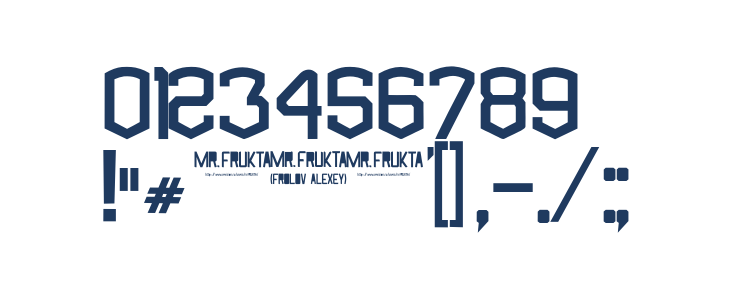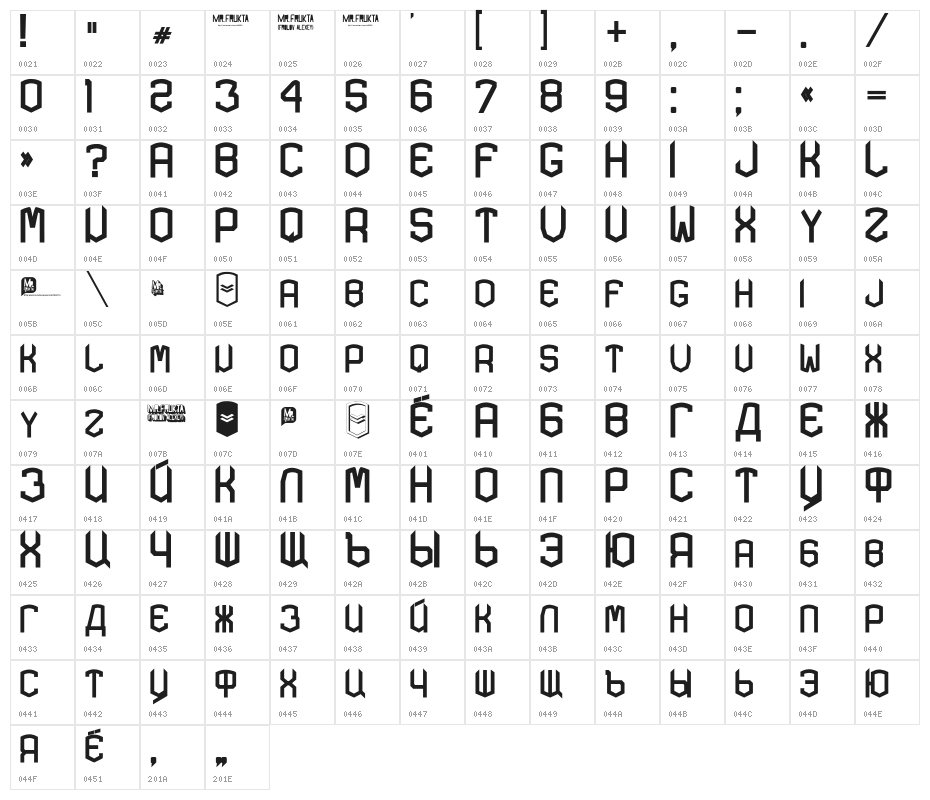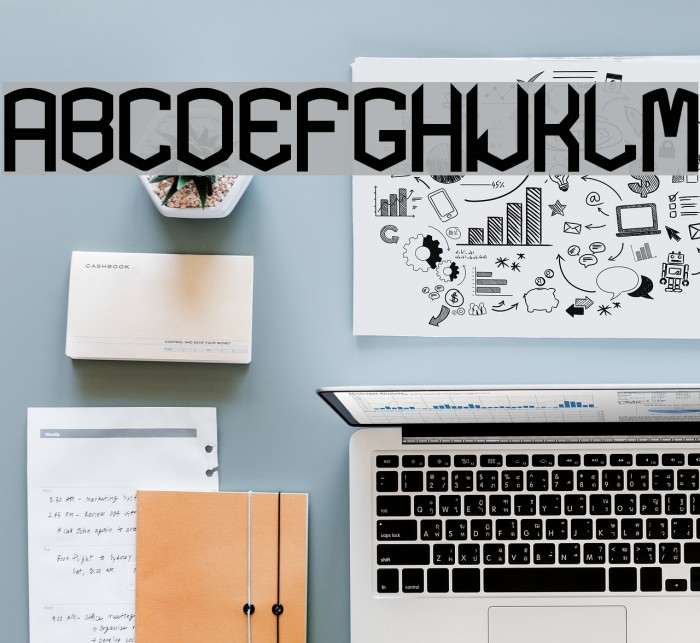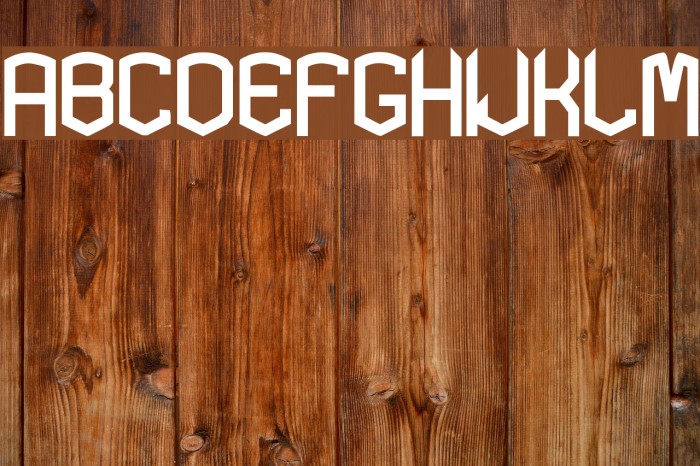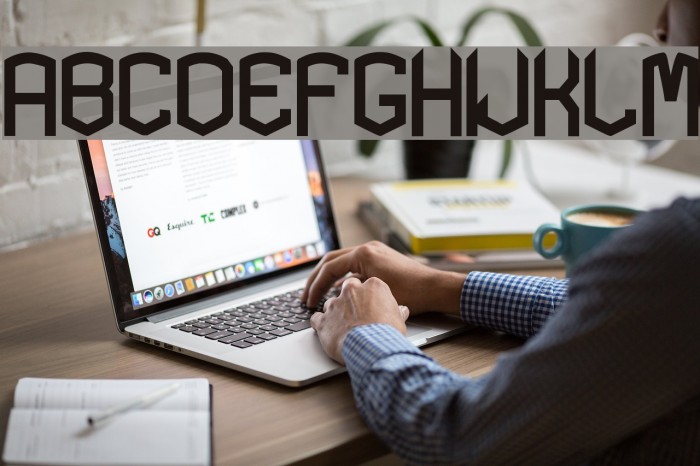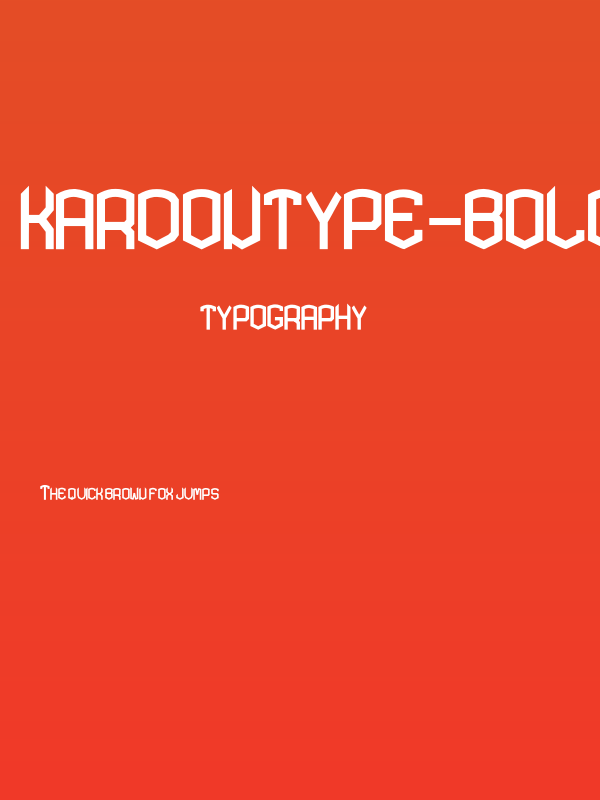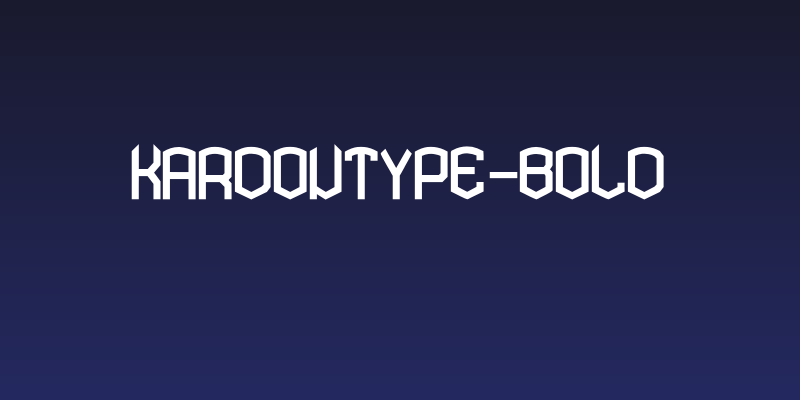
KARDONTYPE-Bold Font
KARDONTYPE-Bold Description
This font features a bold, geometric design with sharp angles and a strong presence. The uppercase letters are uniform in height, creating a cohesive look across the alphabet. The characters have a blocky, almost industrial feel, with consistent stroke thickness that gives them a robust appearance. The numbers and special characters maintain this style, ensuring a harmonious overall look. The font's distinct style makes it suitable for impactful designs where a modern, edgy aesthetic is desired.
| Proposed Projects | Ideal for branding, posters, and headlines that require a modern and bold statement. |